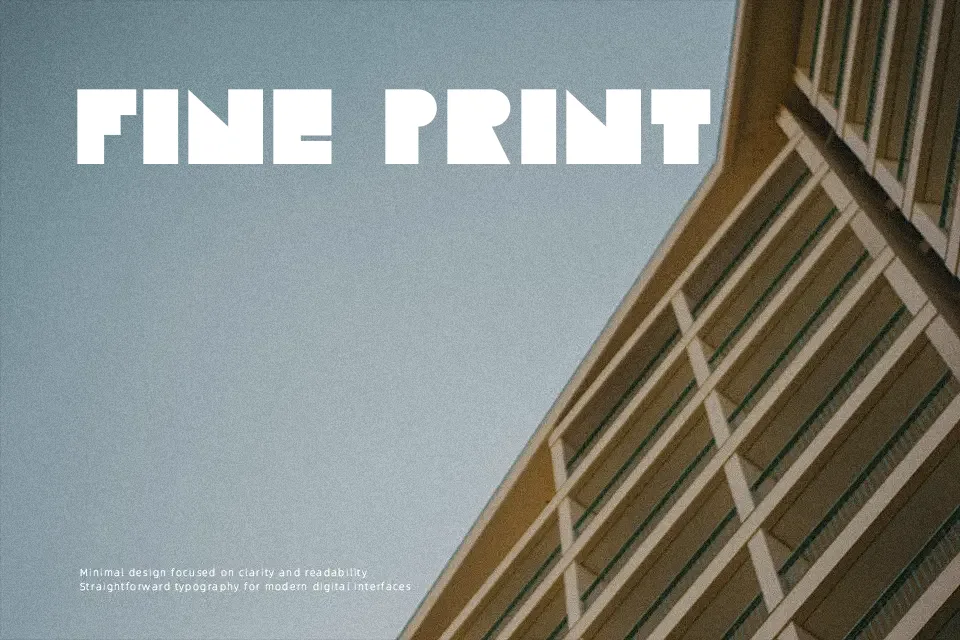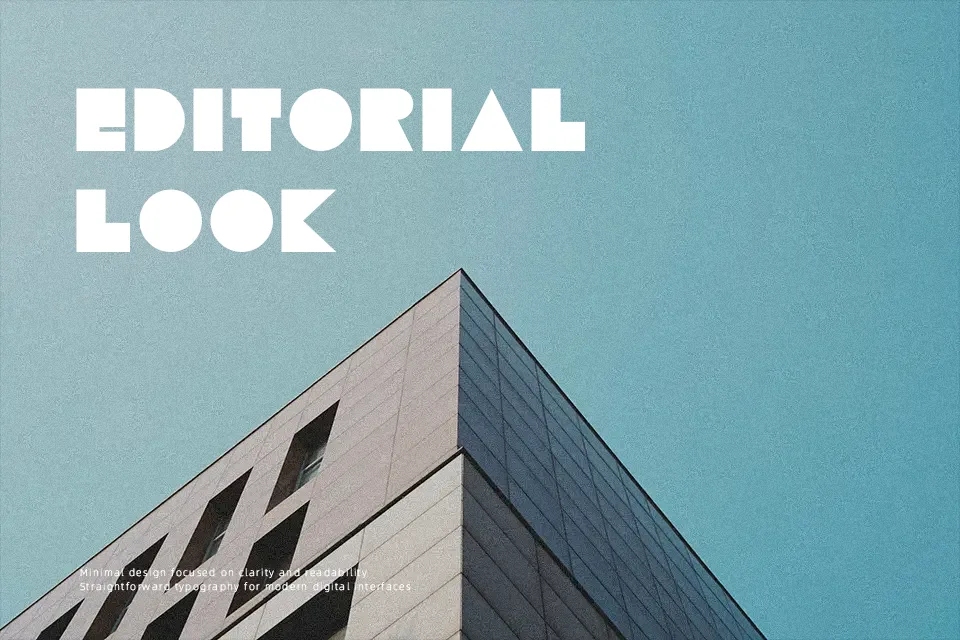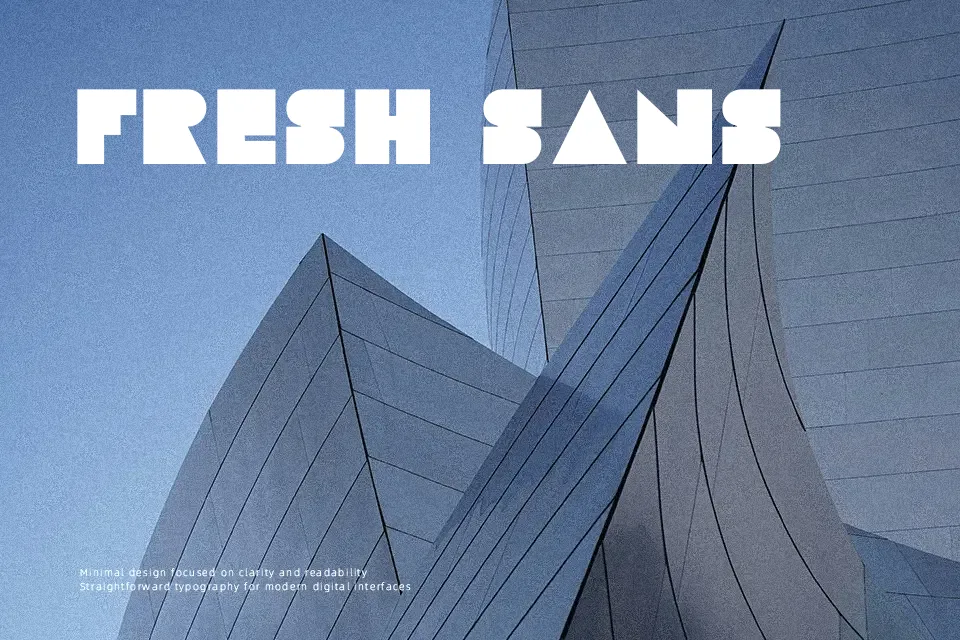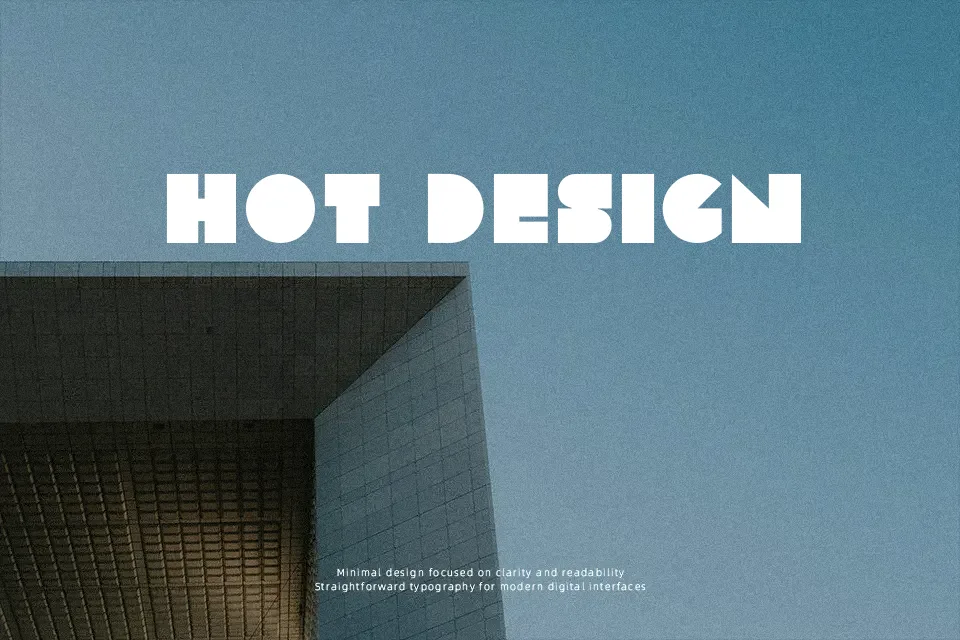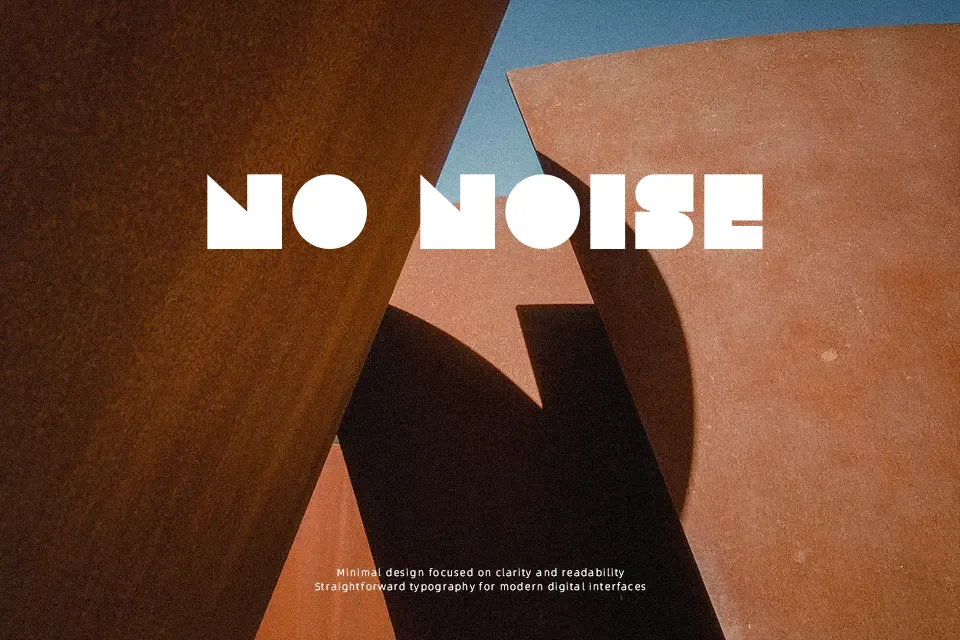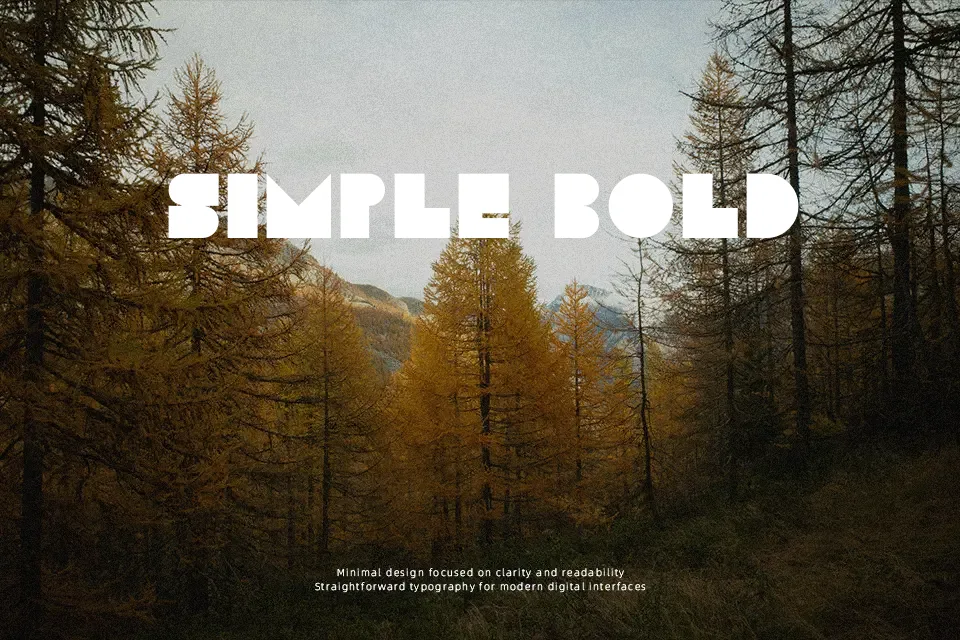
Simplaform Solid Font
Designed by Moov Design Co
Simplaform Solid Font features extremely reduced geometric structures constructed from thick, uniform shapes that eliminate traditional stroke contrast. Each character relies on solid, blocky silhouettes with tight interior counters and consistent cap heights, giving the overall alphabet an assertive, modular rhythm. The letterforms maintain distinct visual punch when set as large headlines, product packaging badges, or bold apparel emblems. However, the sheer density of the heavy forms significantly reduces legibility at smaller text sizes, making the typeface unsuitable for extended editorial copy. For maximum clarity, designers should ensure generous letter spacing across short, high-impact titles.
Best For: streetwear apparel graphics, music festival posters, bold headline banners, product packaging
Not Ideal For: continuous reading paragraphs, mobile app body text, legal documents, dense editorial layouts